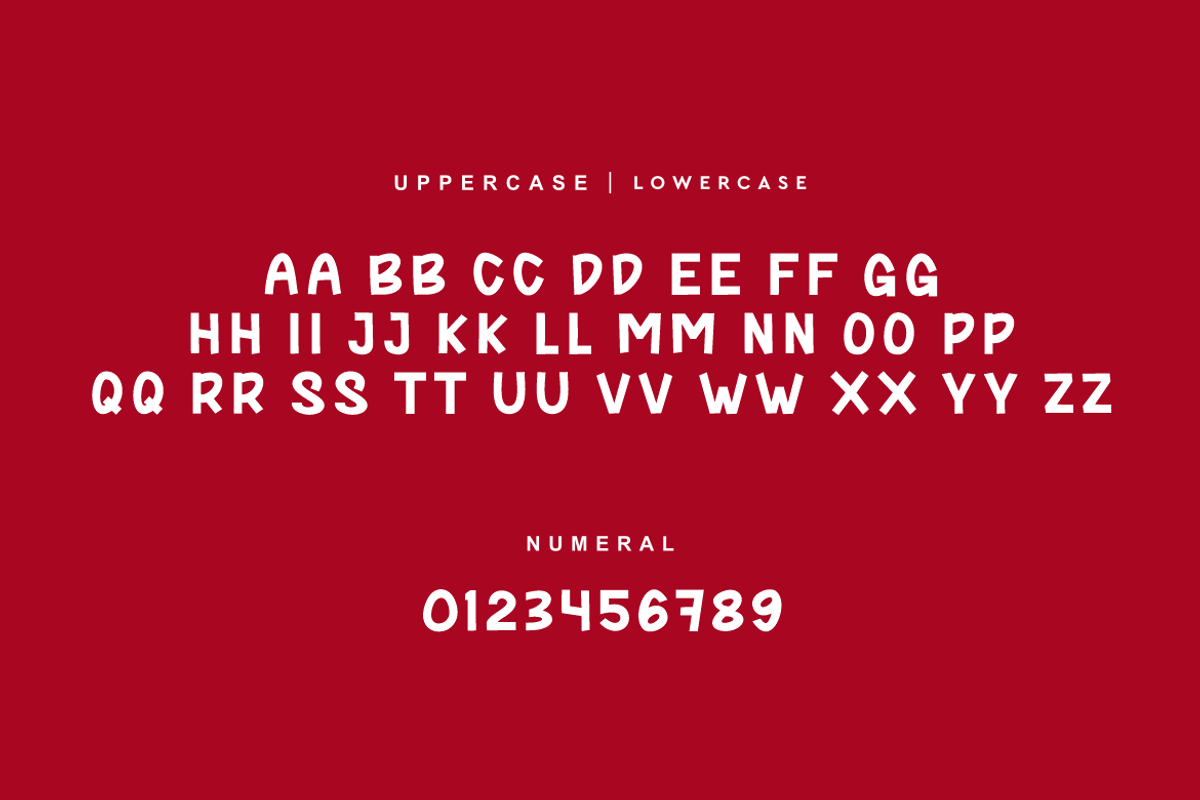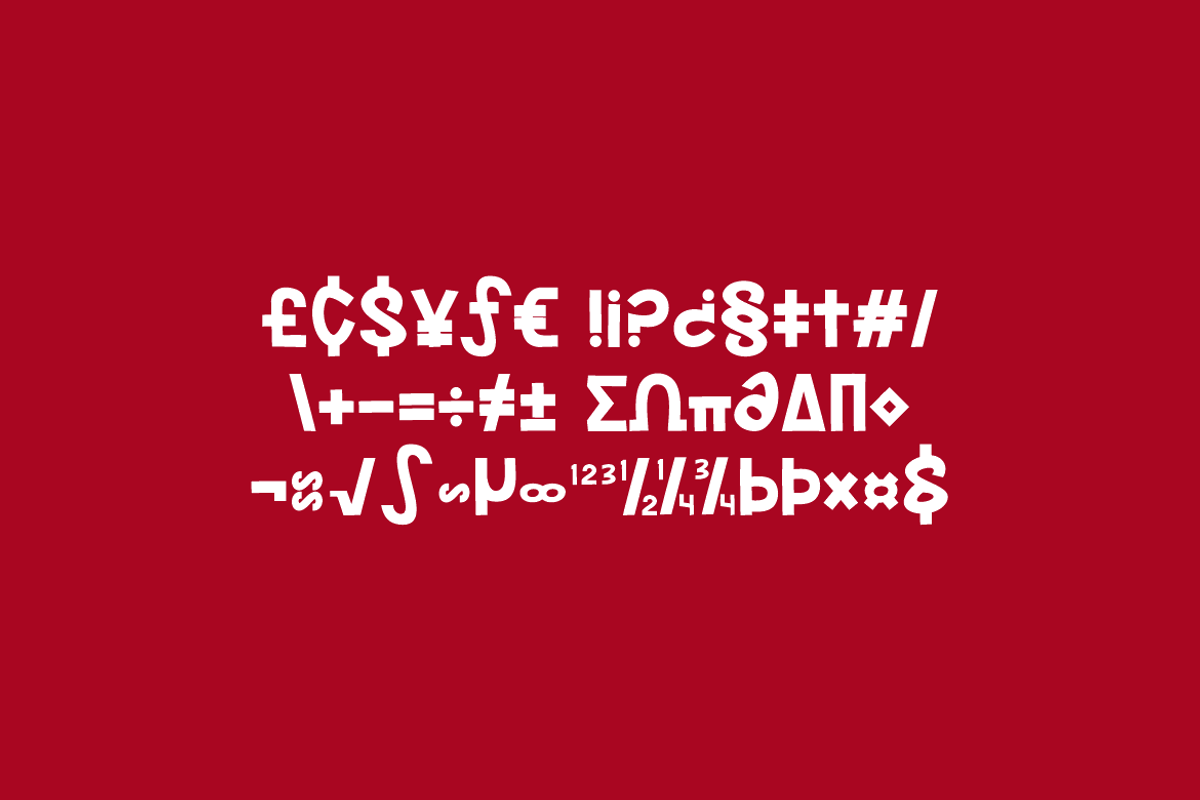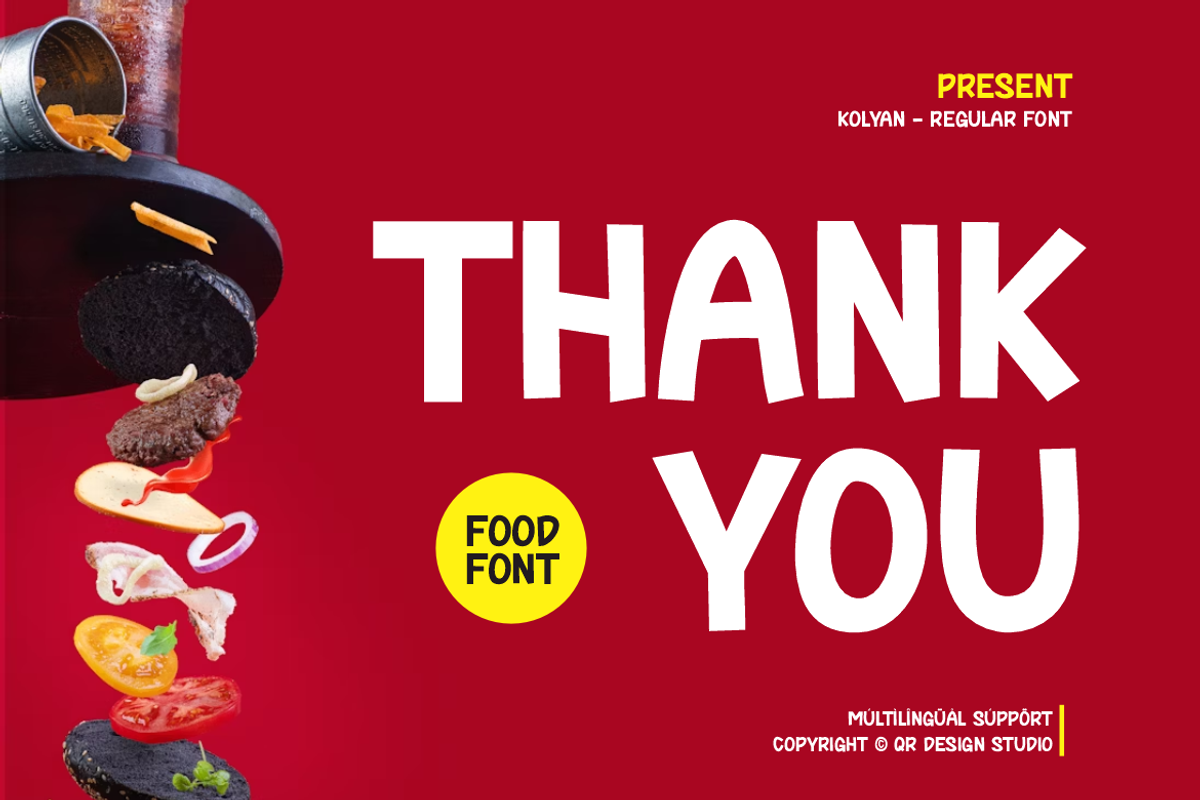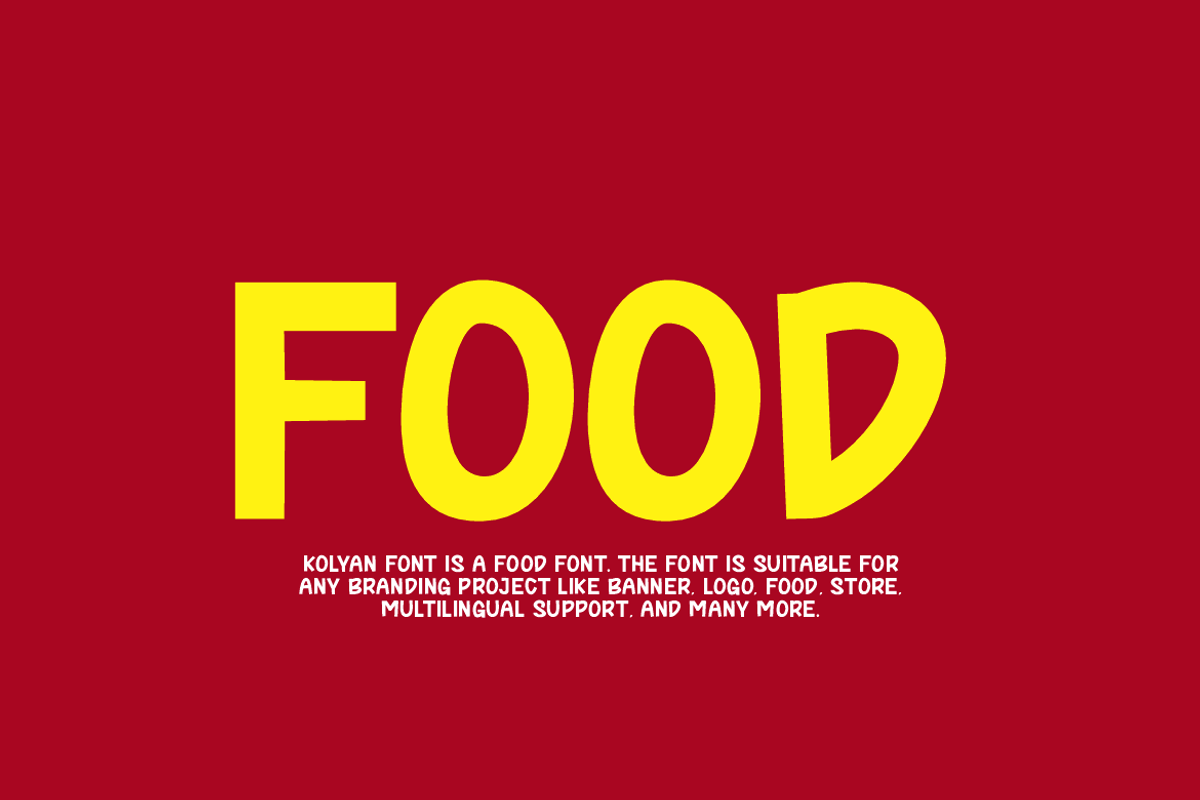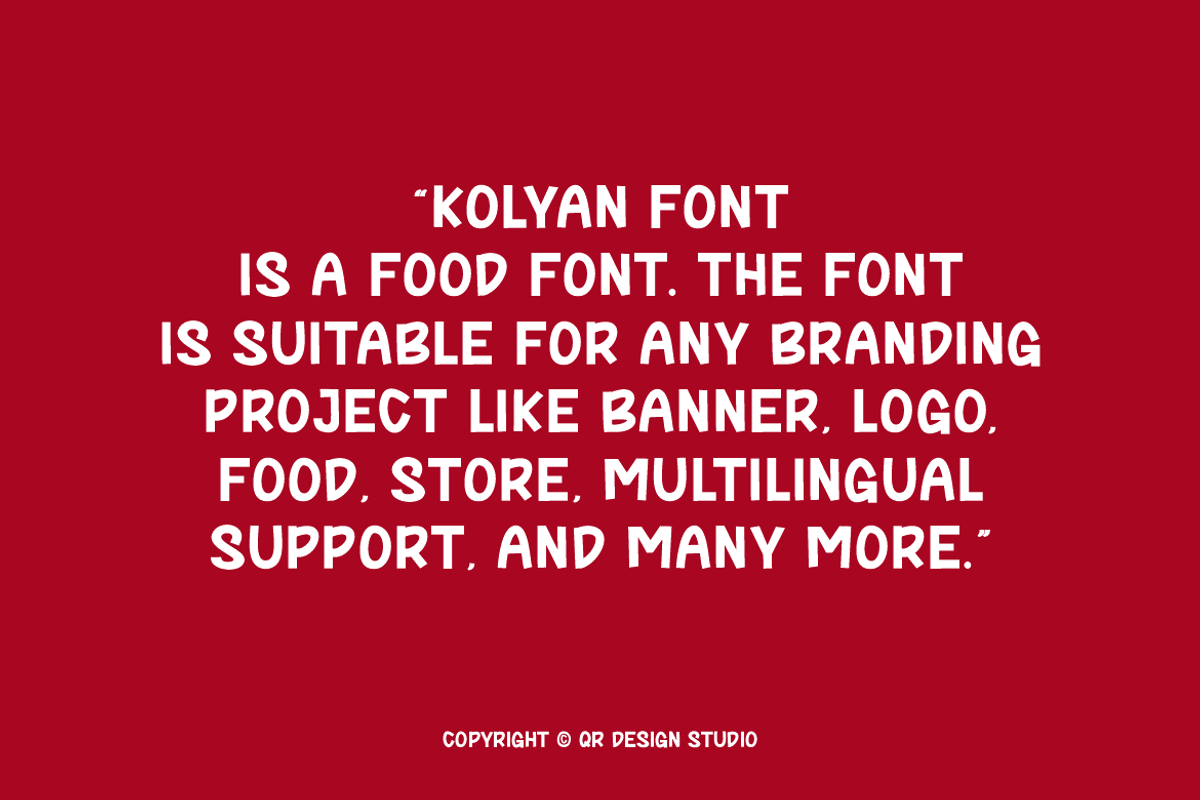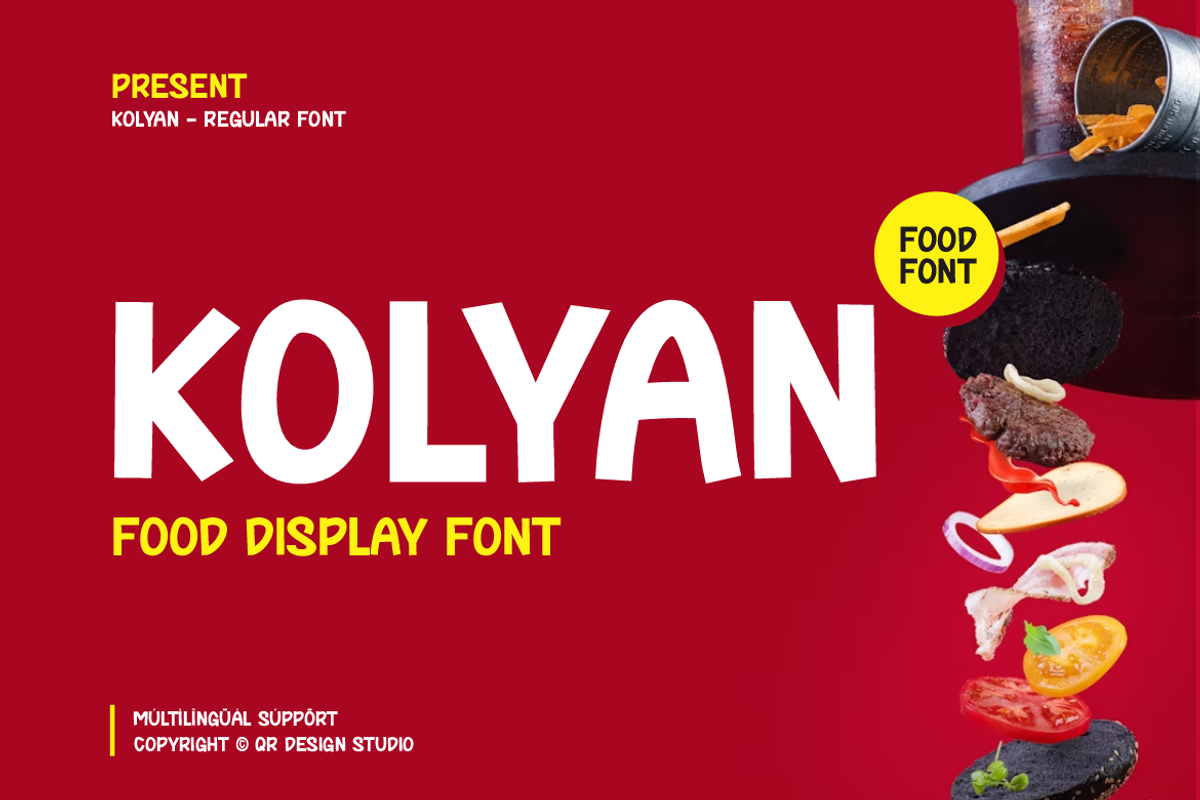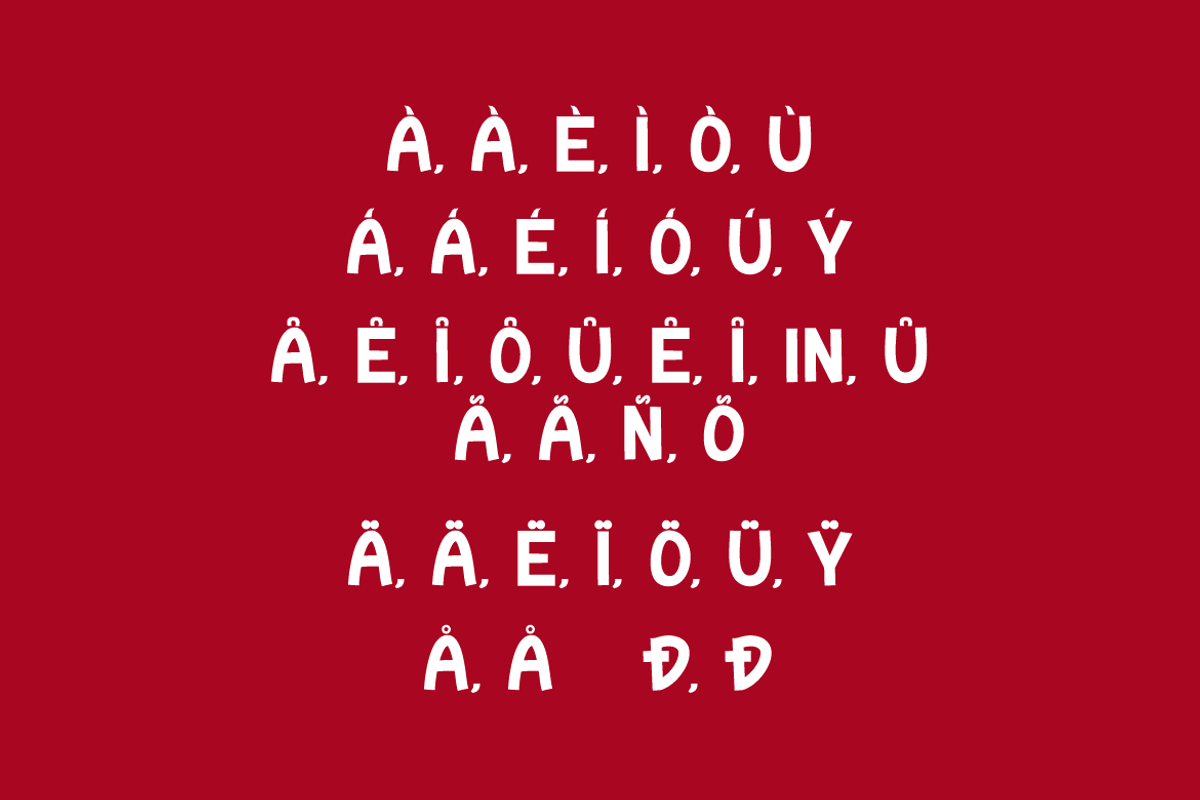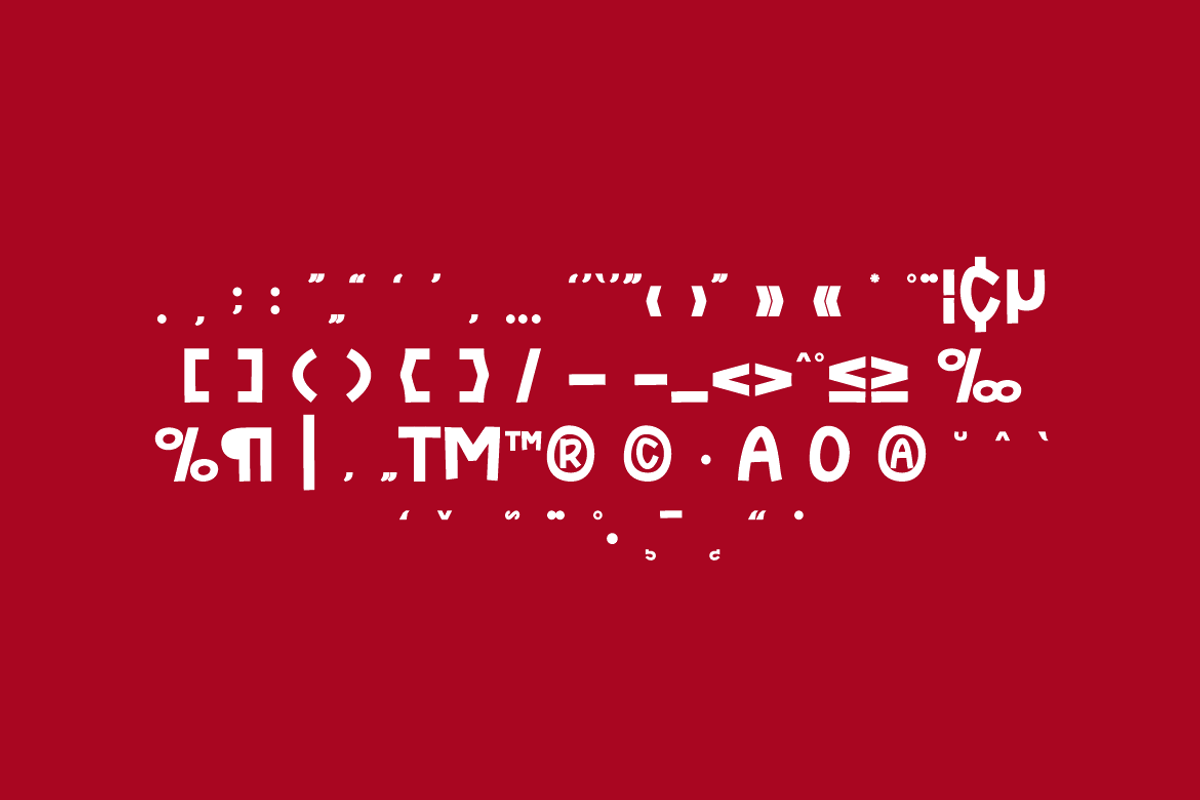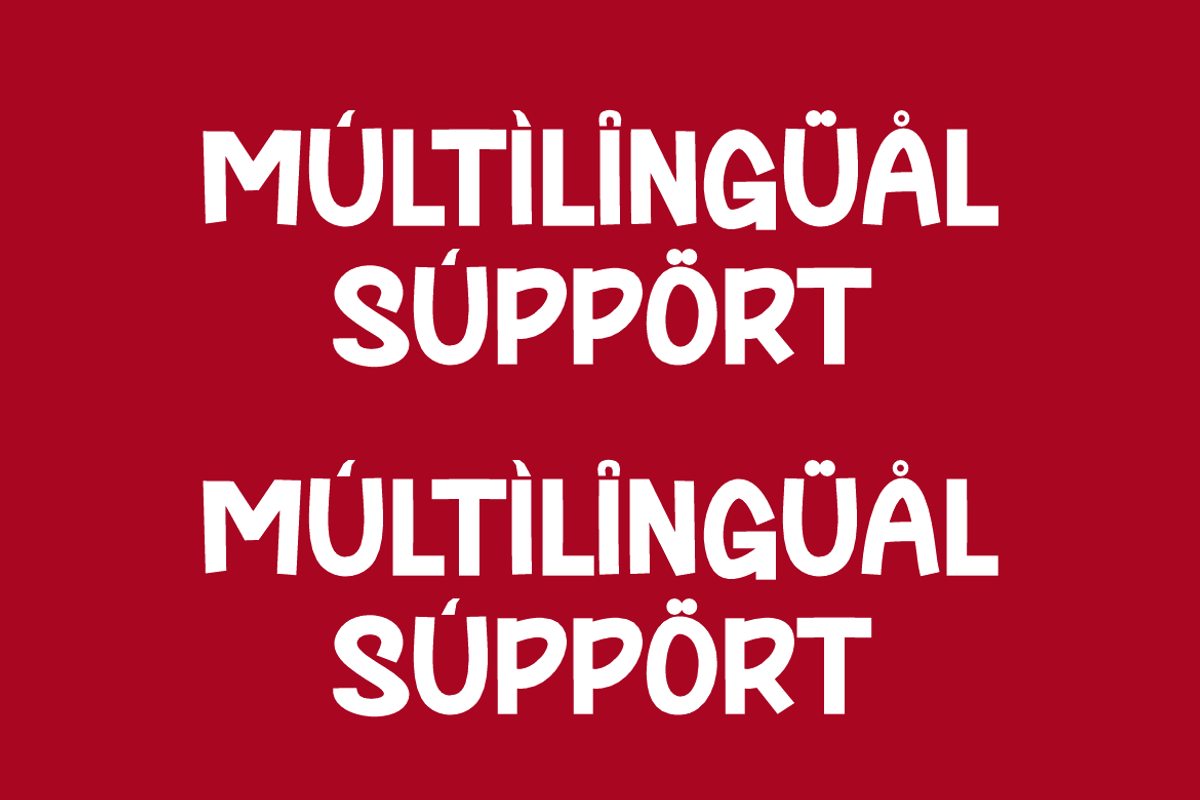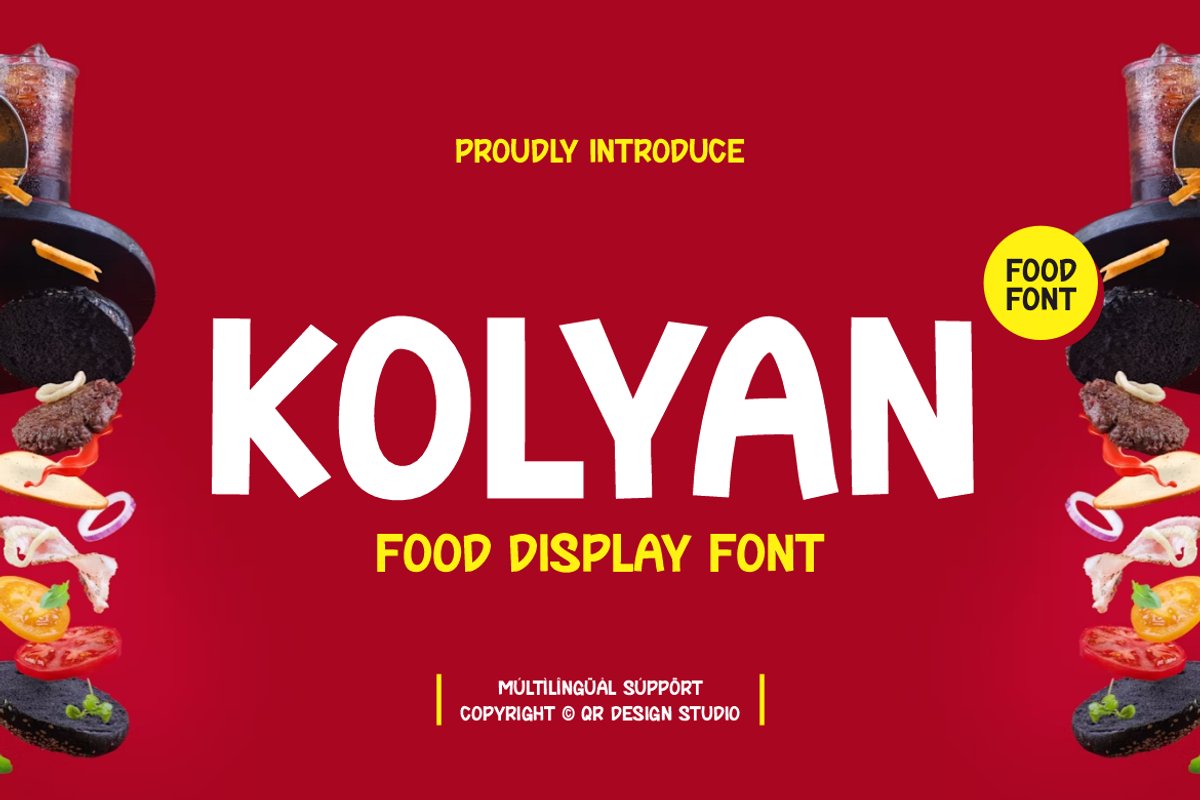
Kolyan - Food Font
Kolyan Font is a food and authentic display font. The font is suitable for any branding project like poster, logo, food, and many more. Outstanding in a wide range of contexts.